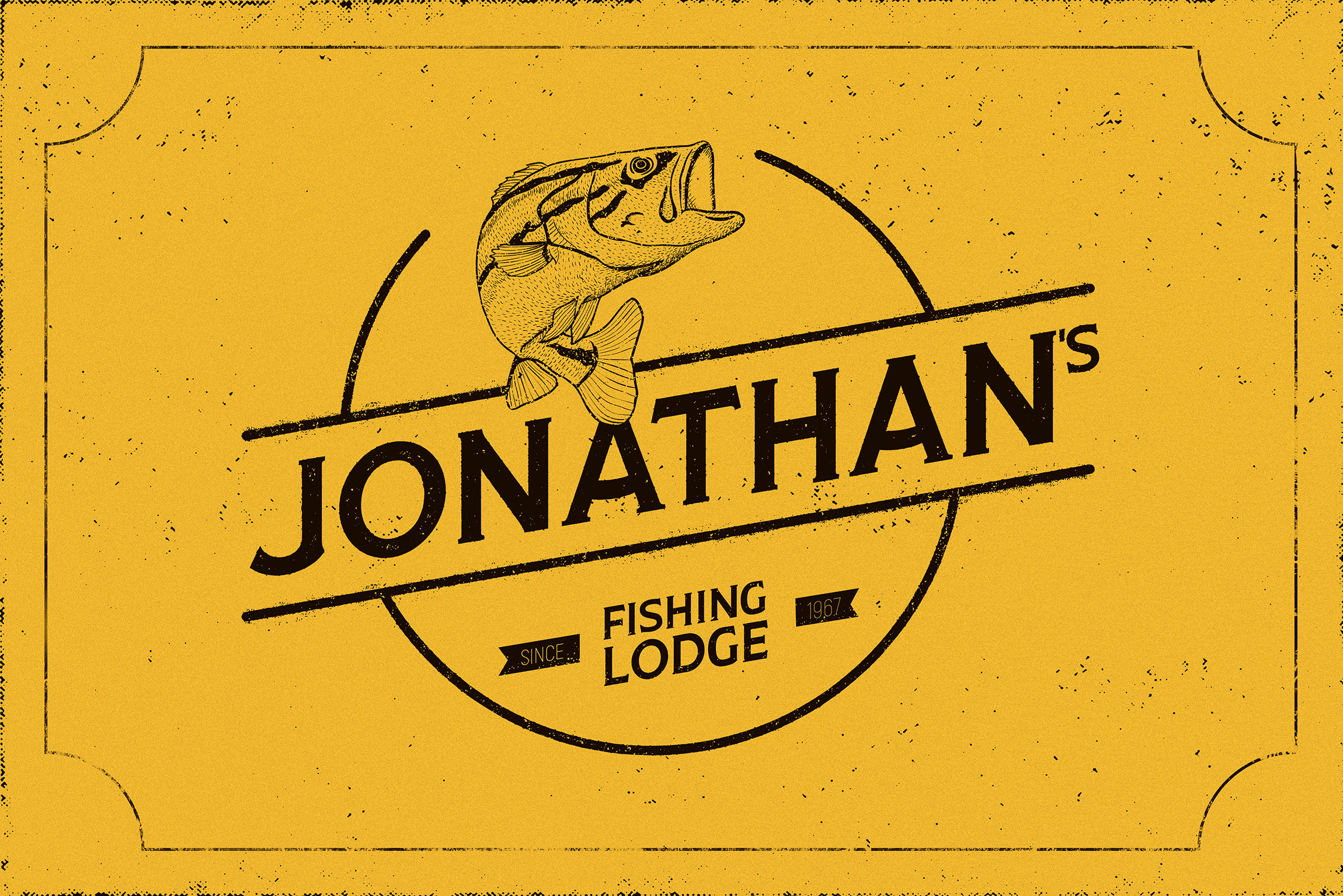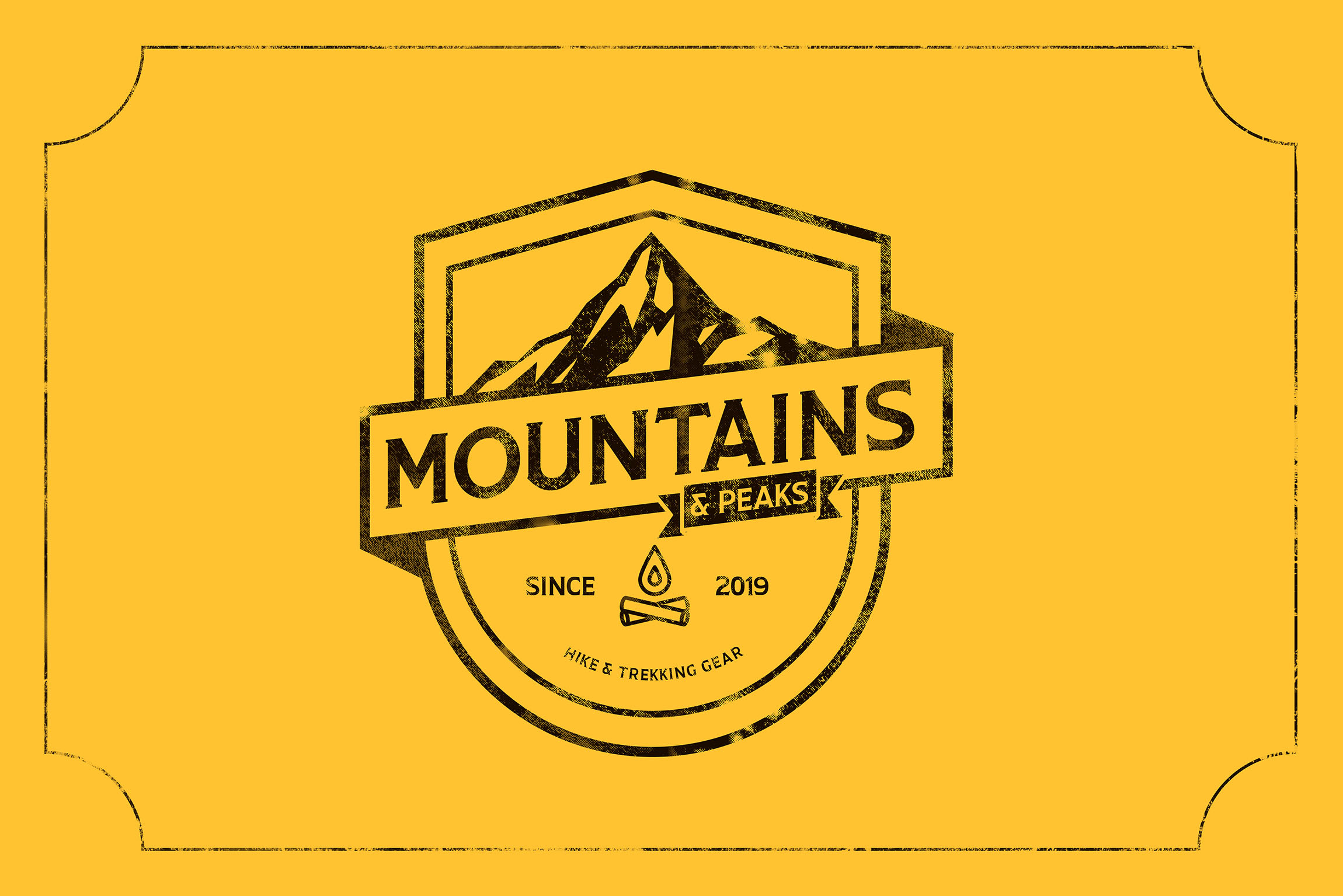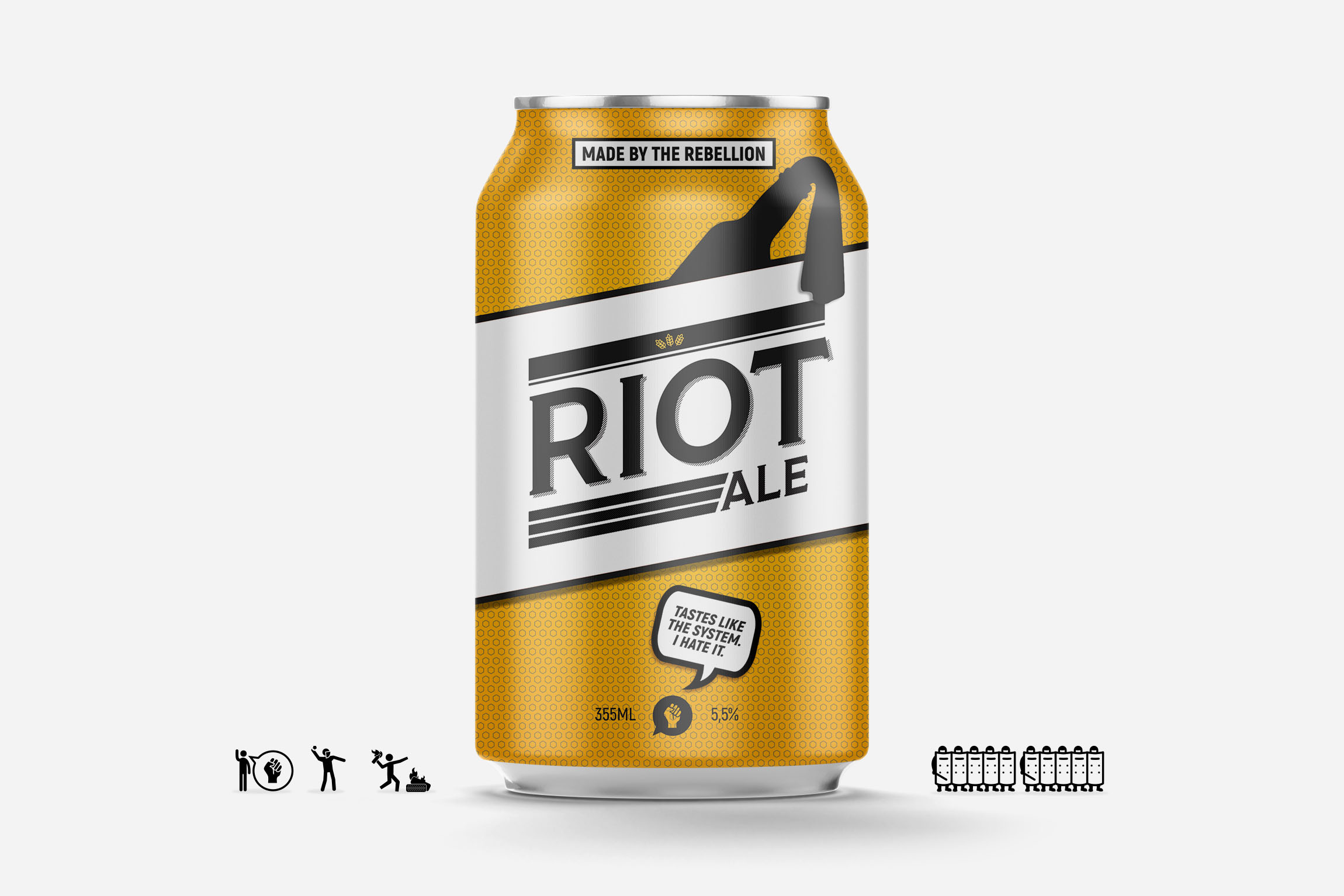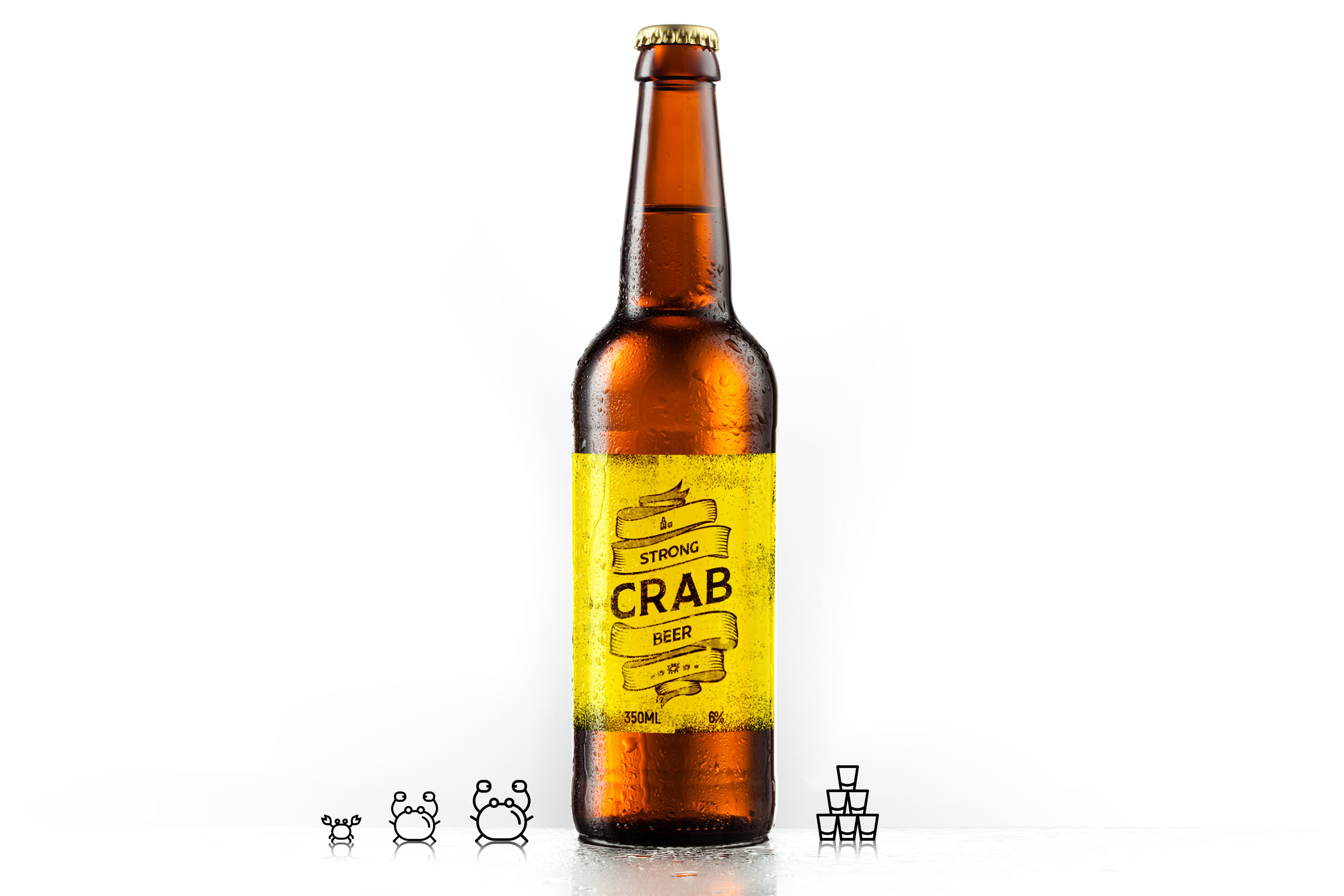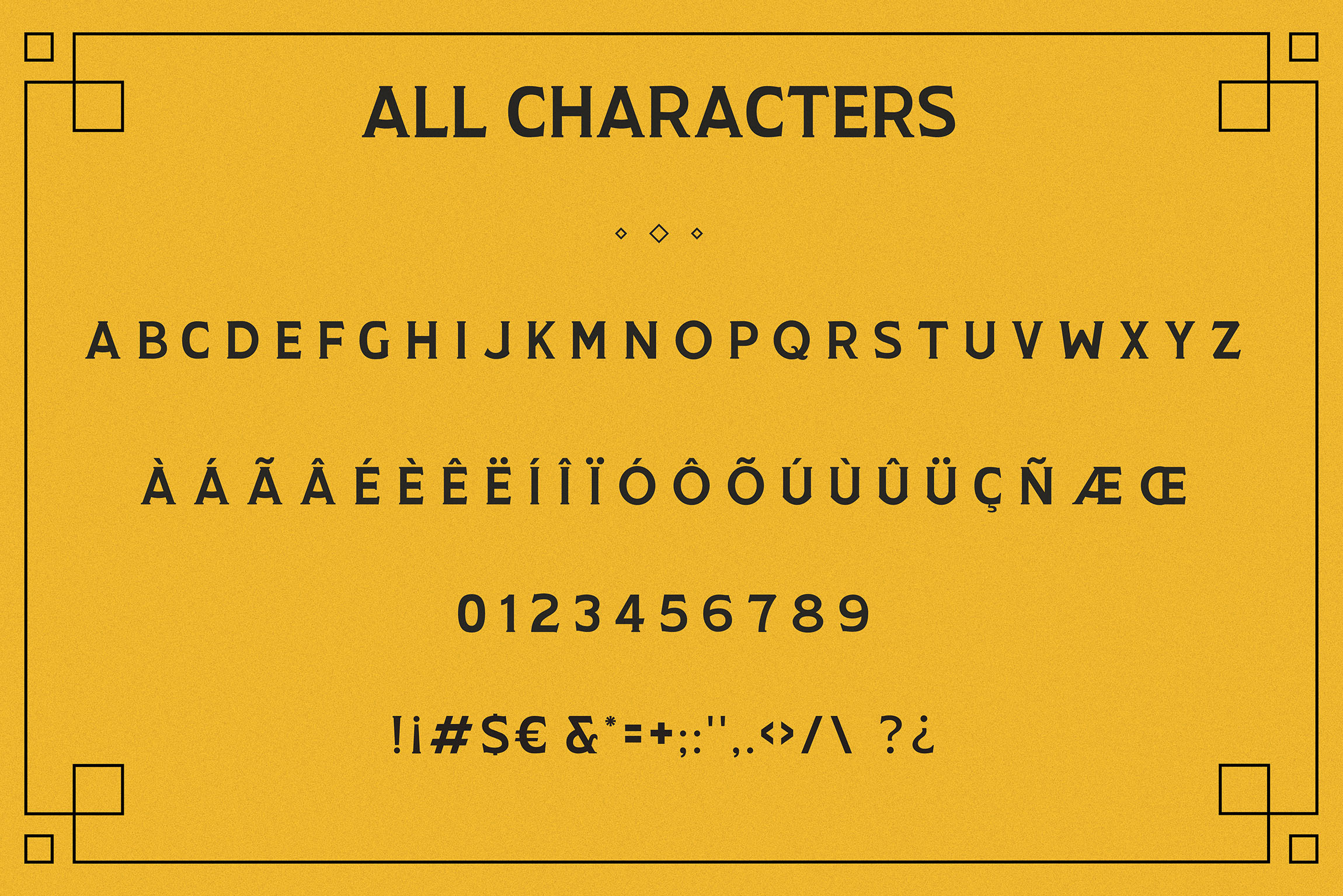
Discover the Timeless Charm of Longway Font
Have you ever stumbled upon an old photograph or a vintage advertisement that instantly sparks your creativity? The nostalgic feel of those bygone days can be a powerful catalyst for your next creative project. For designers, finding the right font can be just as exciting as discovering that hidden gem. This is where the Longway Font comes in – a versatile, all-caps serif font that effortlessly transports you to a bygone era.
Whether you’re working on a packaging design, branding a new apparel line, or creating a stunning visual identity, Longway Font is an invaluable design resource that will elevate your work. With its high-quality design and seamless language support for English, Spanish, French, and Portuguese, this font is perfect for both print and web projects. Plus, with a free download option, you can experiment with Longway Font without breaking the bank – and enjoy the freedom to work with a transparent background, making it a perfect fit for any design project.
Honest Review: Longway Font
I recently came across the Longway Font and was excited to see how it would work for my creative project. I was looking for a free download that could provide a high-quality design resource, and this font did not disappoint. Upon initial inspection, I was impressed by the clean and modern aesthetic, making it perfect for a wide range of applications.
Here are some of the things that work well for the Longway Font:
- ✨ High-quality design with a clean and modern aesthetic
- ✨ Transparent background, making it easy to work with
- ✨ Perfect for a wide range of creative projects
- ⚠️ Limited character set, may not be suitable for complex designs
- ⚠️ Not all weights and styles are available, may require additional downloads
Overall, I’m really impressed with the Longway Font. It’s a great addition to any design resource collection, and I would definitely recommend it to anyone looking for a high-quality, free download. While it may have a few limitations, the benefits far outweigh the drawbacks, making it a great choice for your next creative project.
The Longway Font is ideal for a variety of creative projects, including social media graphics, presentations, posters, and reports. Its high-quality design and transparent background make it a versatile and useful design resource for designers and non-designers alike.
Yes, the Longway Font is a high-quality design resource, carefully crafted to provide a unique and stylish look for your creative project. With its clean lines, elegant curves, and attention to detail, the Longway Font is an excellent choice for designers seeking a premium font for their design work.